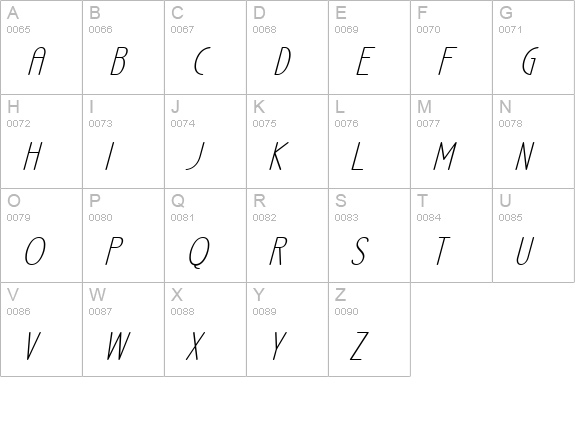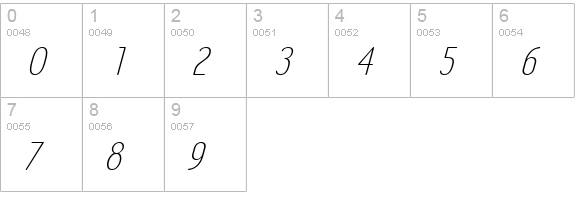
LA Headlights BTN Lt Italic is a distinctive, italic variant in the LA typeface family \xE2\x80\x94 well suited to design and typography projects.
Introducing LA Headlights BTN Lt Italic, a stunning and elegant font that will illuminate your designs with a touch of sophistication. With its sleek and slender letterforms, this font exudes a sense of modernity and style, making it perfect for a wide range of projects. LA Headlights BTN Lt Italic is the ideal choice for those seeking a font that effortlessly combines elegance and versatility. Its italicized design adds a subtle flair to any text, making it ideal for headlines, logos, branding, and more. Whether you're designing a sleek website, creating eye-catching posters, or crafting elegant invitations, this font will undoubtedly make a lasting impression. What sets LA Headlights BTN Lt Italic apart is not only its impeccable aesthetic but also its accessibility. We are thrilled to offer this font to you free of charge, making it easily accessible to designers of all levels. Simply head over to FontsMarket.com, where you can download LA Headlights BTN Lt Italic at no cost, and start incorporating this beautiful font into your projects today. With LA Headlights BTN Lt Italic, you can effortlessly elevate your designs to new heights, adding a touch of elegance and sophistication. Its sleek and slender letterforms combined with its italicized design make it a versatile choice for a wide range of projects. Whether you're creating a logo, designing a website, or crafting invitations, this font is sure to captivate your audience and leave a lasting impression. Don't miss this opportunity to download LA Headlights BTN Lt Italic for free at FontsMarket.com and unlock unlimited creative possibilities.